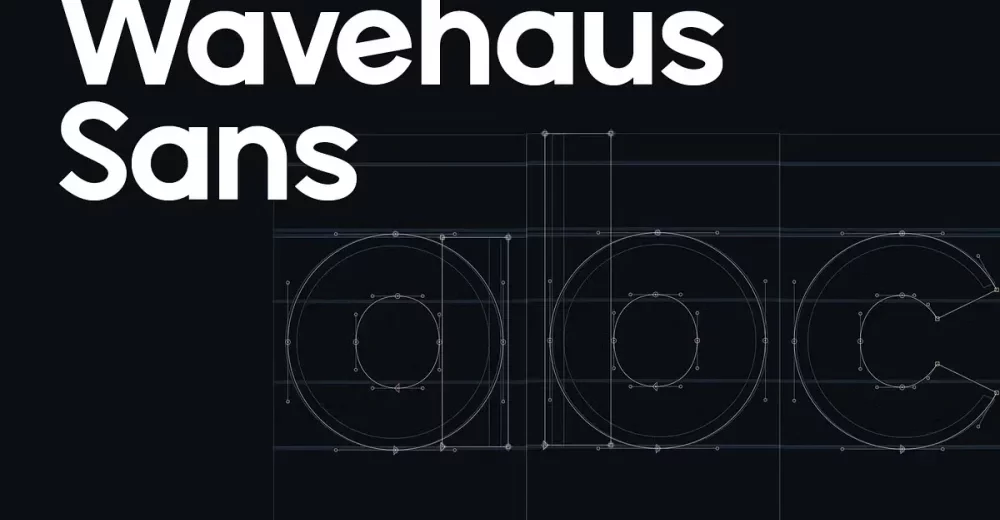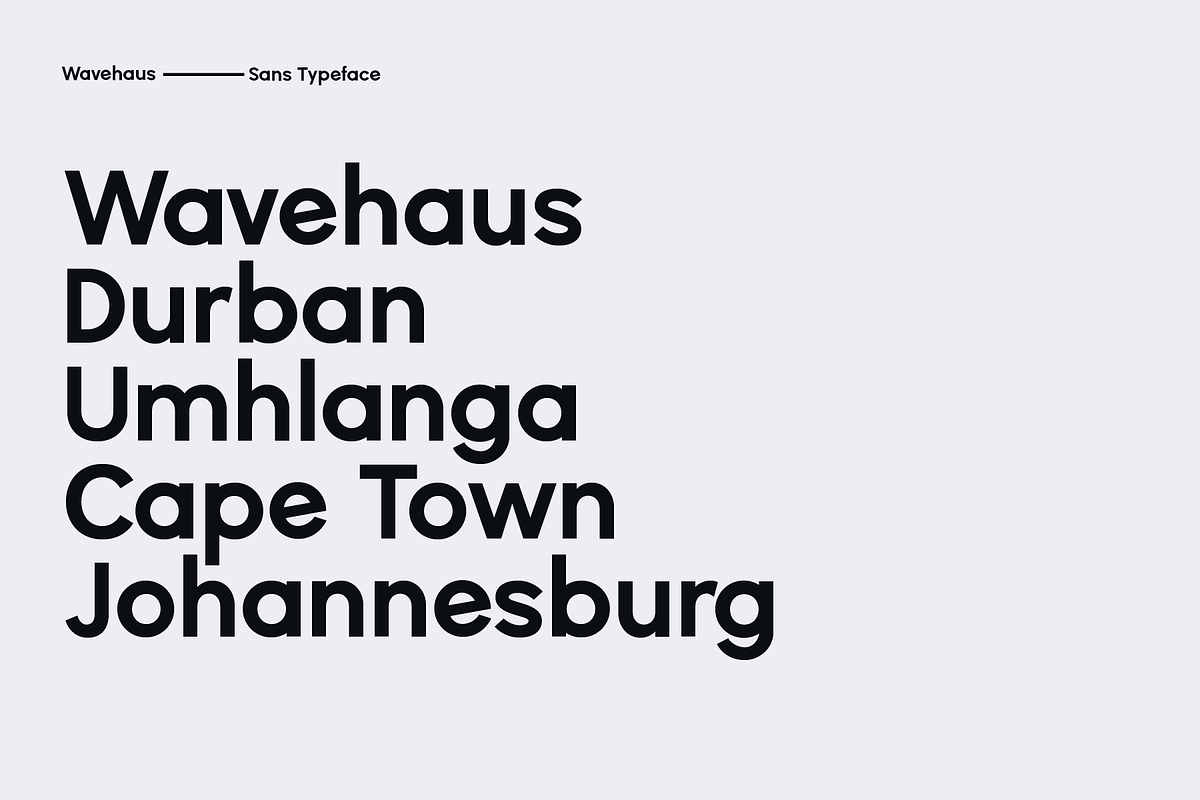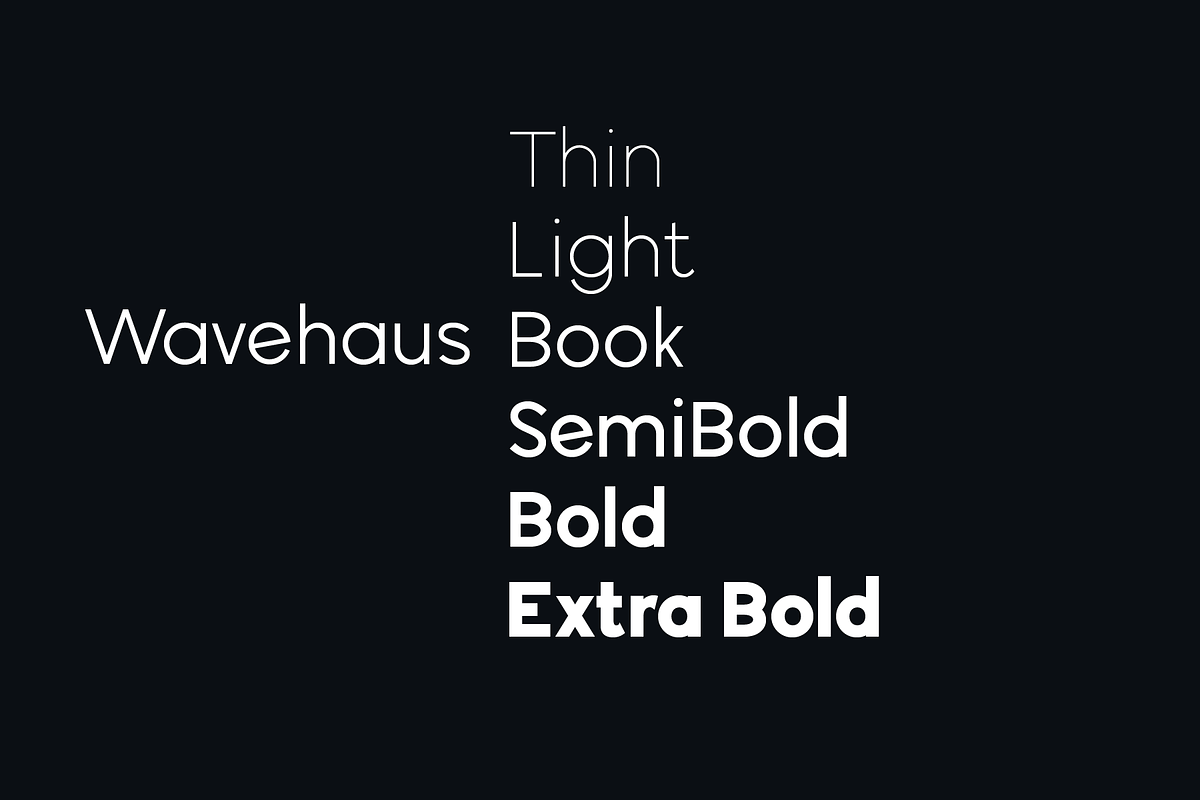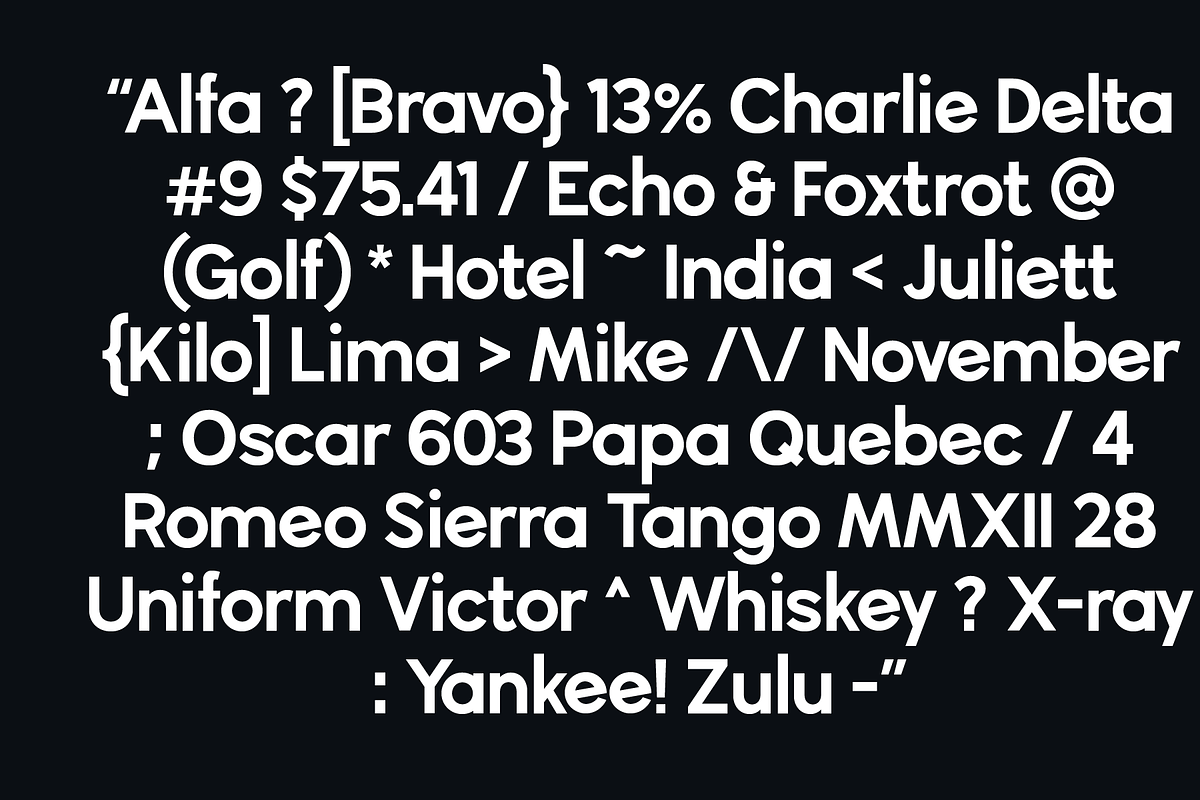
Wavehaus is a geometric sans serif font family with 6 weights including thin, light, book, semibold, bold and extra bold. Includes uppercase and lowercase characters, numerals and most common other characters.